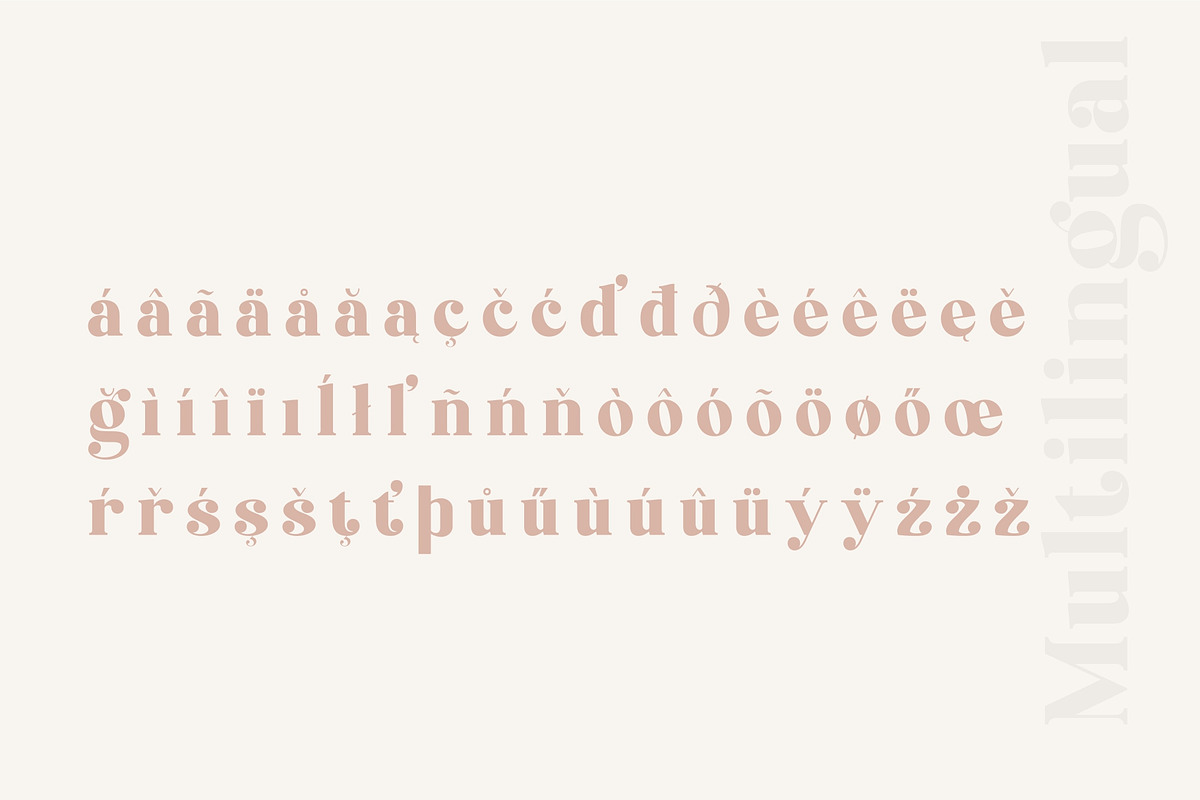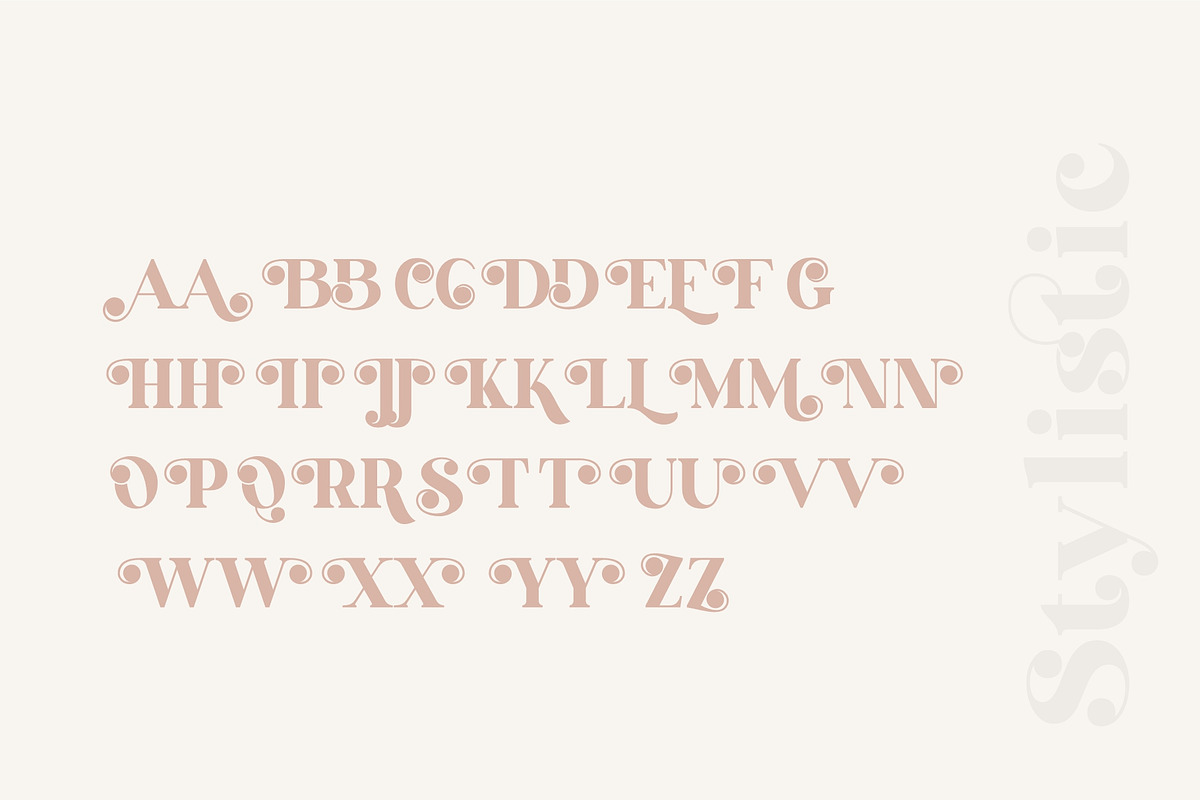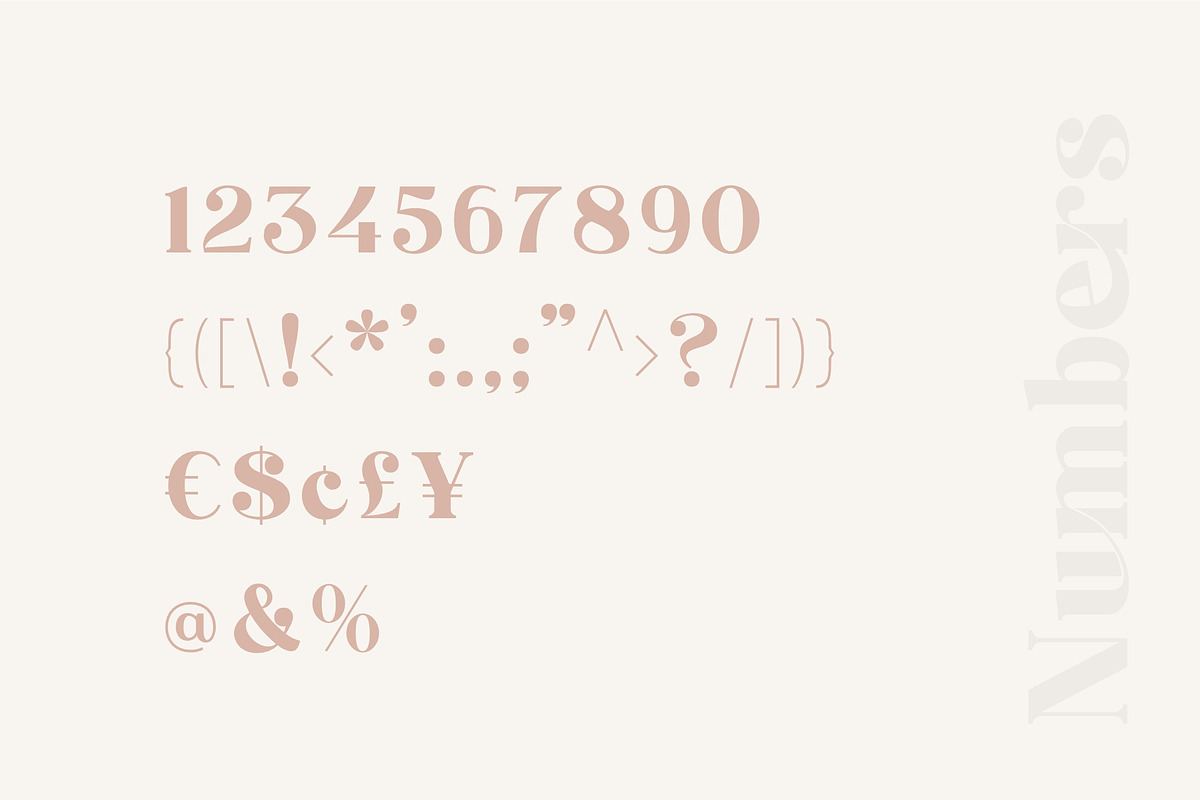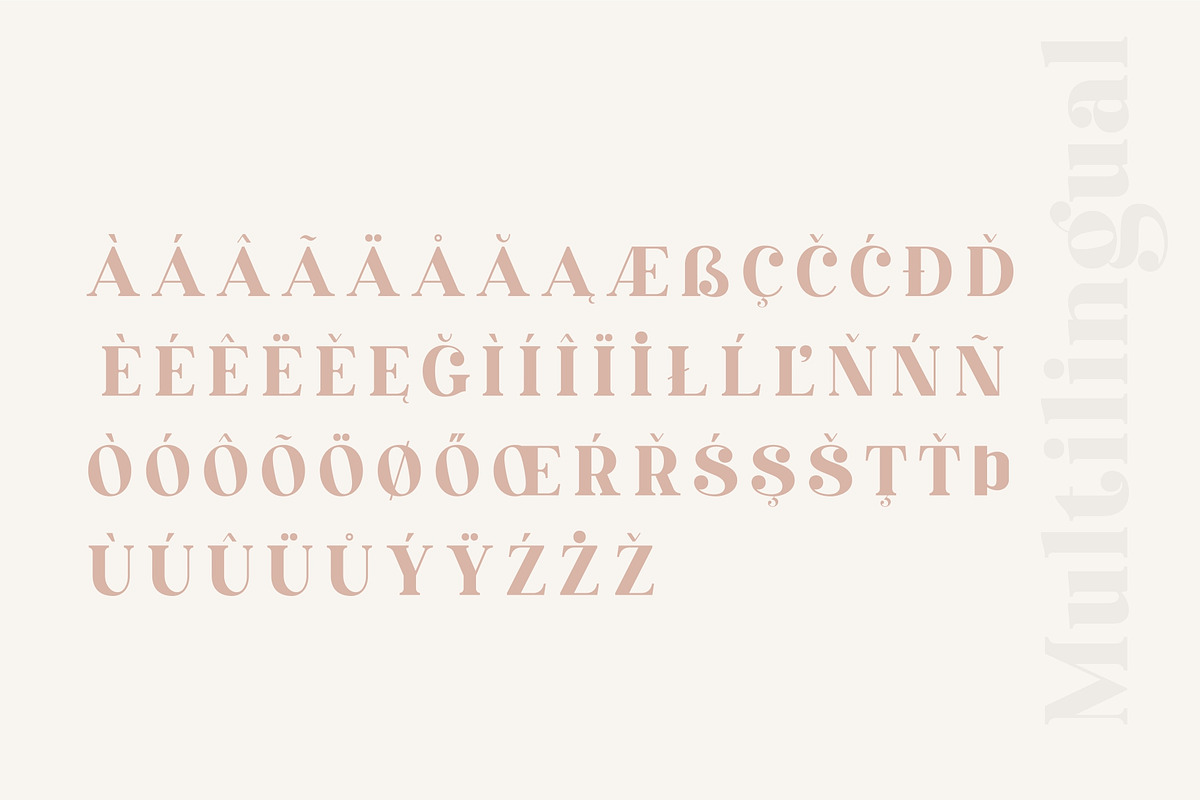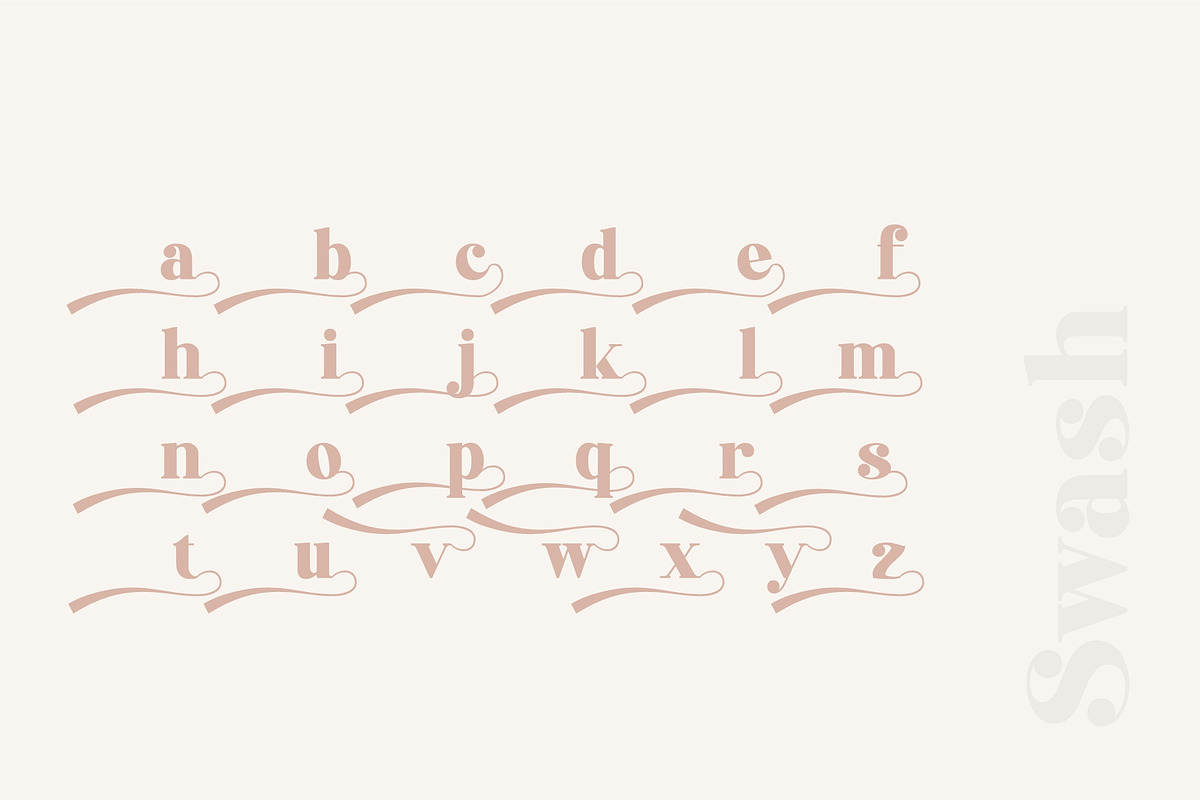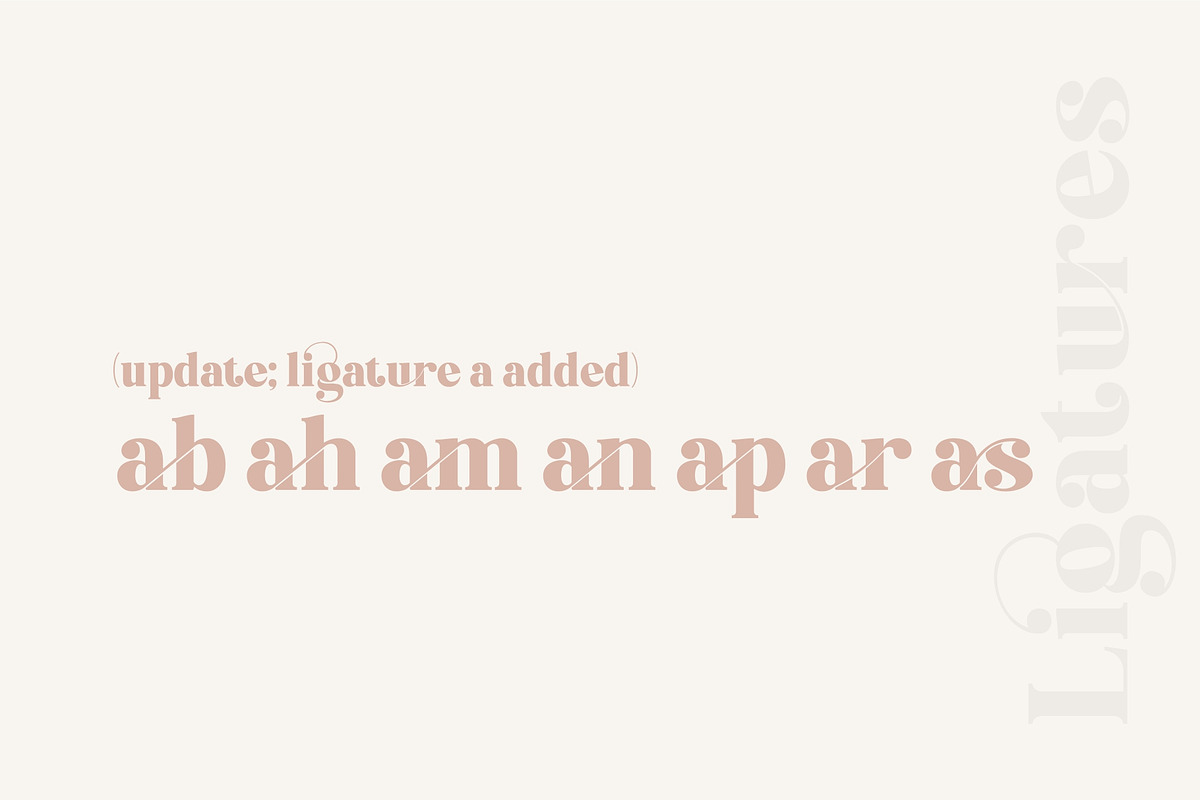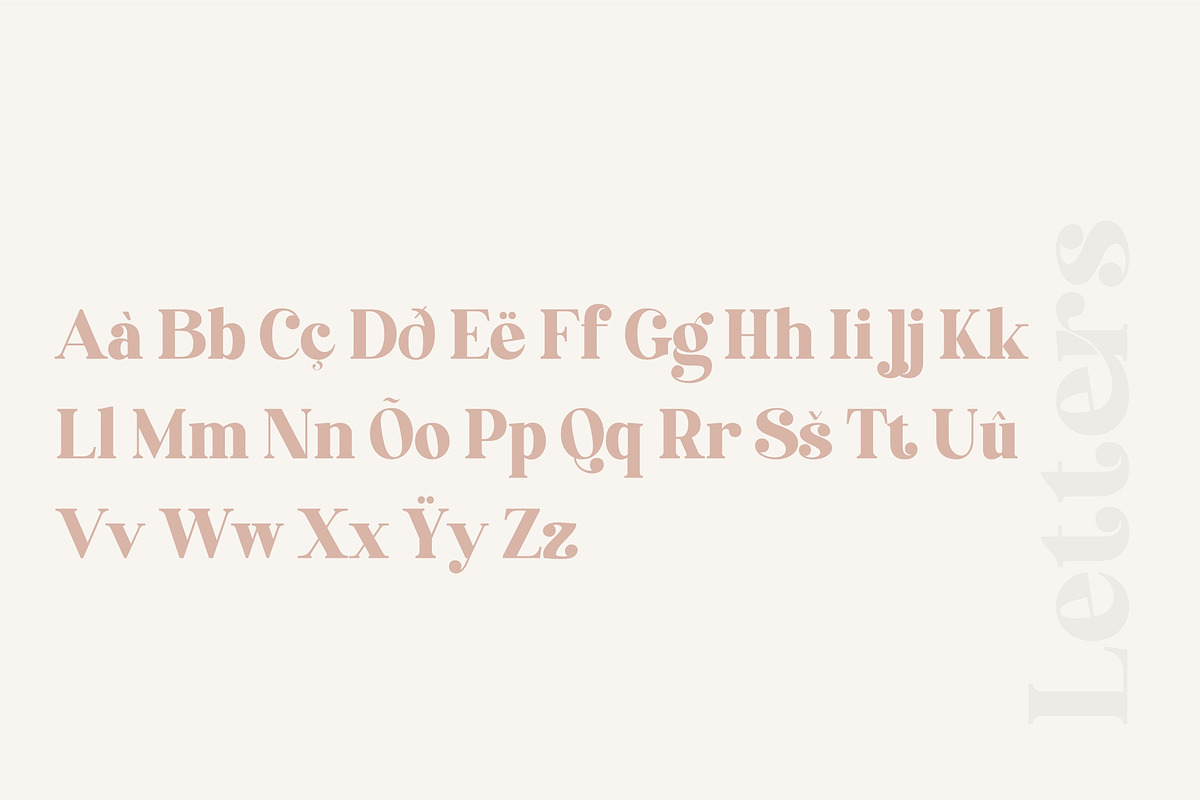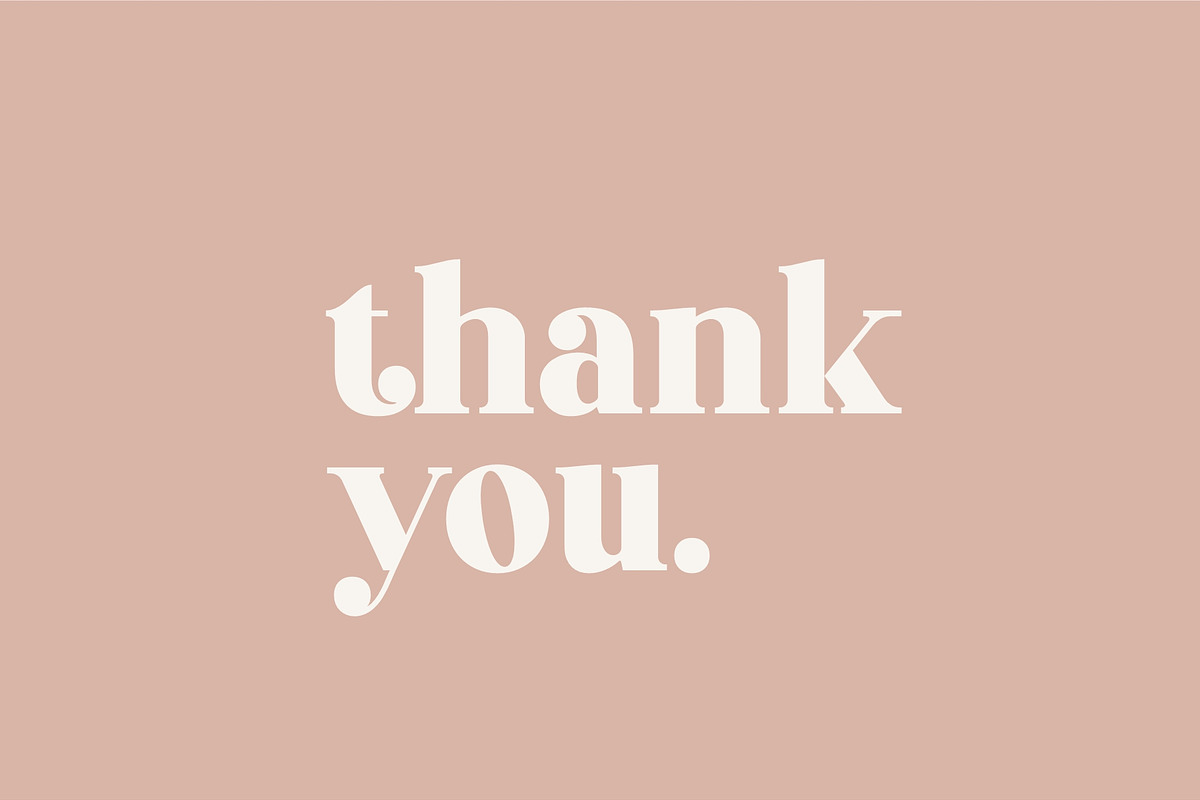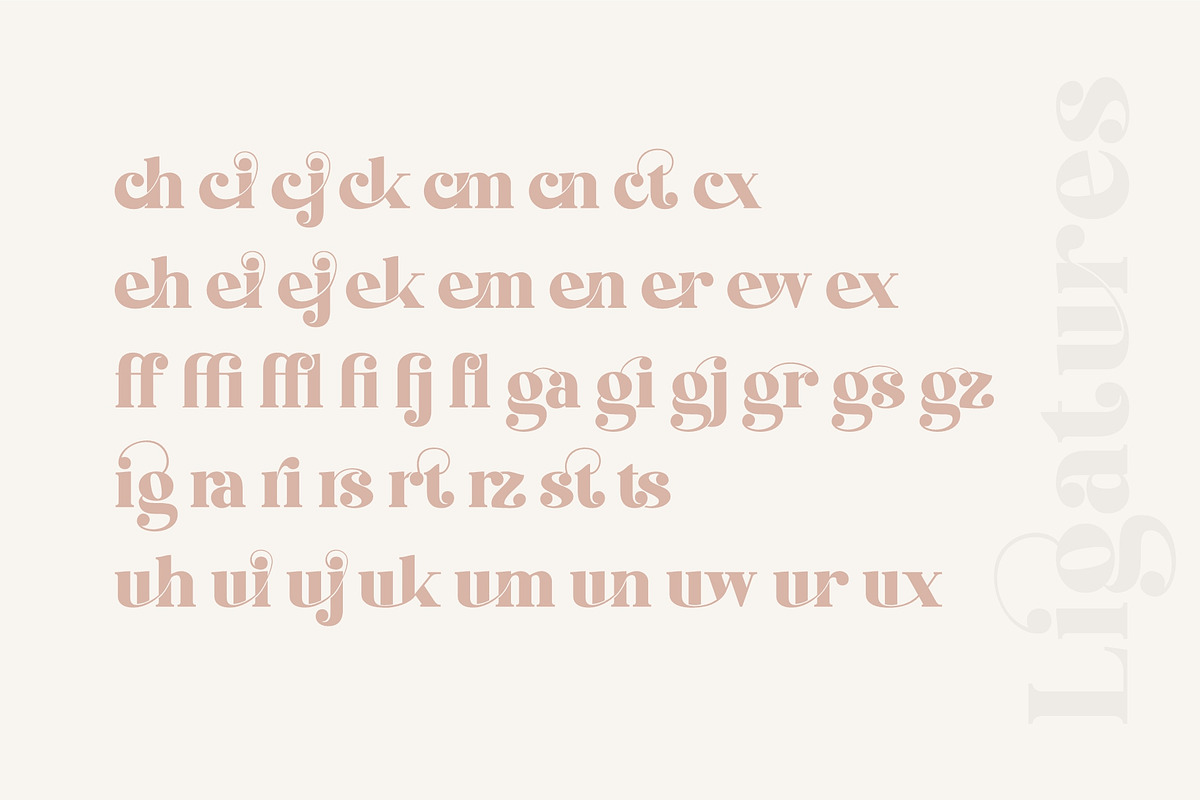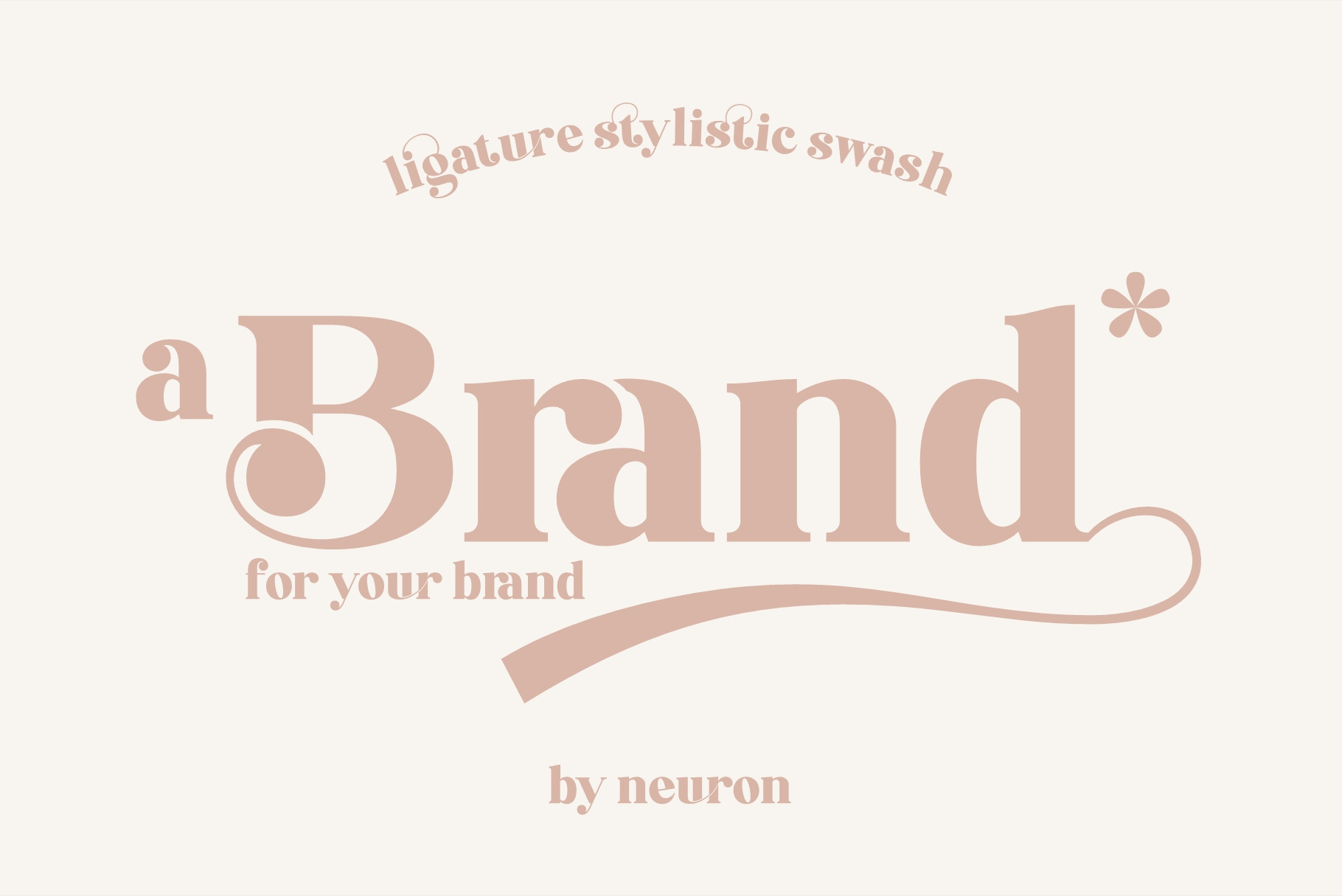
Brand Display Font
A 'Brand' for your brand. Brand is bold and chic, with contrast and elegant feel. It is a display font, a playful one. So much option to ignite your project, start from stylistic, swash, and a bunch of ligature.
Update: Ligature a added.